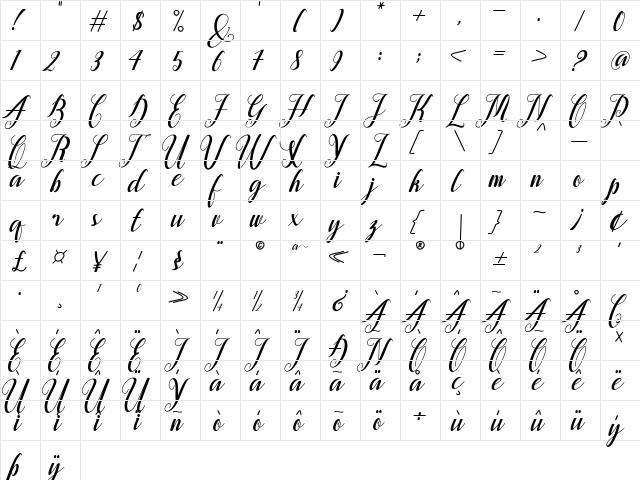
Alongtime Regular
| Foundry | Afredo.Fk |
| Designer | Zulfikar Ali |
Design Context for Alongtime Typeface
Alongtime is a composed and adaptable typeface that performs quietly and consistently across a wide range of design contexts.